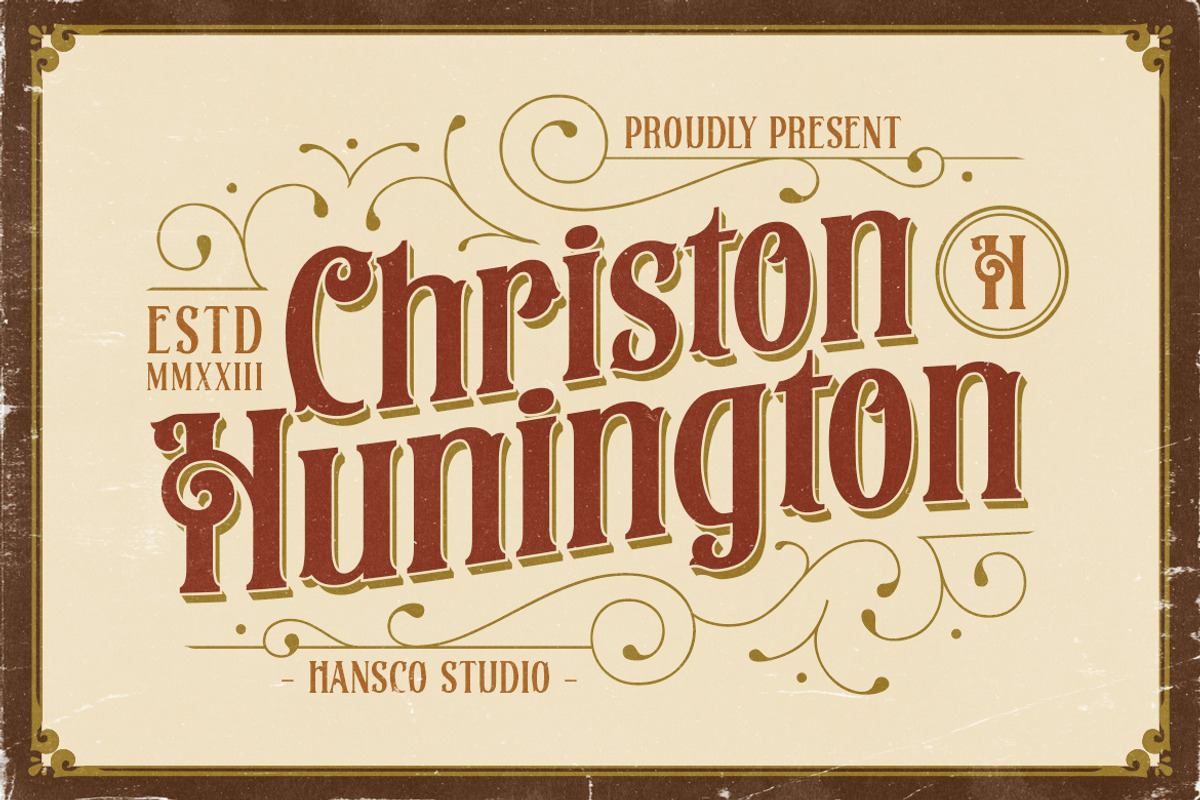
Christon Hunington Vintage Font Free Download
The Christon Hunington Vintage Font Free Download is a classic, retro-inspired typeface that adds a timeless, vintage touch to any design. Perfect for logos, posters, packaging, and retro branding, this font brings a nostalgic and stylish feel to your creative projects. Please note, for commercial use, a license must be purchased. You can download it for free for testing purposes.
With its bold serifs and distinct design, the Christon Hunington Vintage Font Free Download is ideal for projects that need a vintage or old-school aesthetic. Whether you're creating retro logos, typography for advertisements, or unique print materials, this font provides a strong, classic look that never goes out of style.